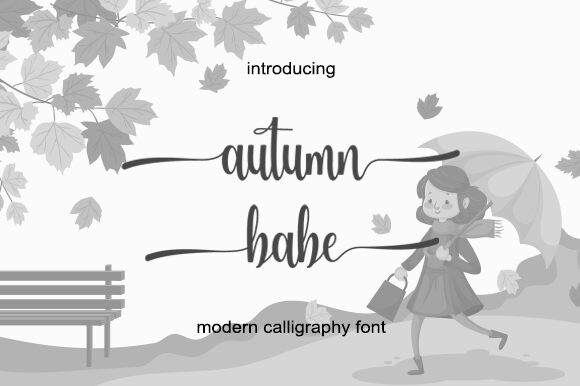
Autumn Babe is a beautiful light calligraphy font designed by Anjas Cov Cava Lera. Its narrow letterforms exude elegance and grace, making it perfect for projects such as wedding stationery, signature logos, and social media graphics.
Autumn Babe